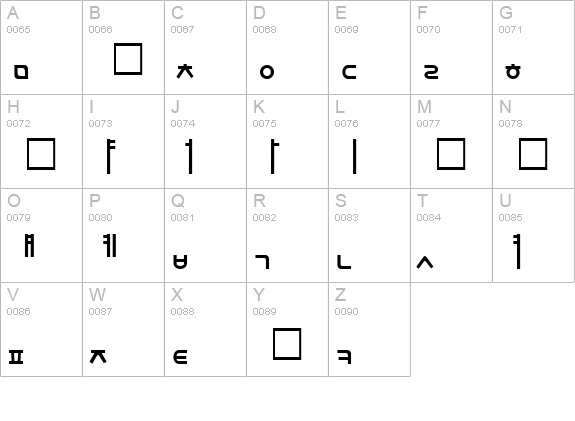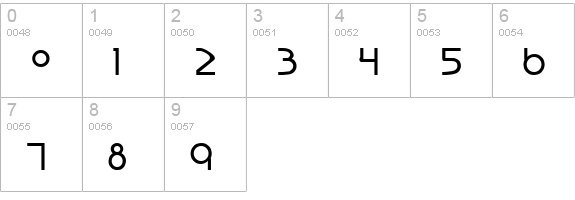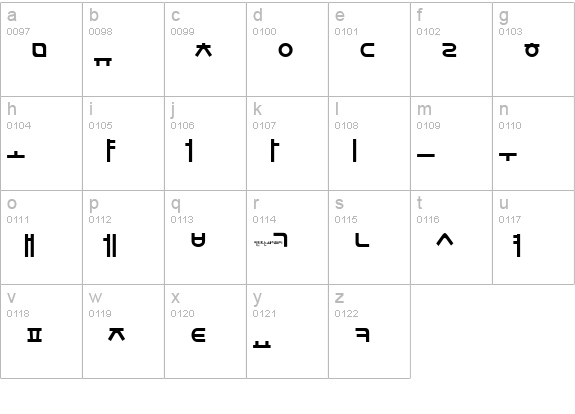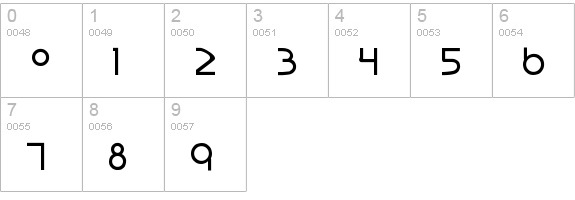
Sorawin Plain Font Details
Sorawin Plain is a captivating and versatile font that effortlessly combines elegance with simplicity. This font is perfect for any creative project, whether it's designing a logo, creating stunning graphics, or crafting eye-catching headlines. Its clean lines and timeless design make it suitable for both professional and personal use. Sorawin Plain stands out from the crowd with its unique blend of sophistication and approachability. Its balanced proportions and crisp letterforms make it easily legible across various mediums, ensuring that your message is conveyed with clarity and style. One of the best things about Sorawin Plain is that it is free! Yes, you read that right. This exceptional font is freely available to download at FontsMarket.com. You can now have access to this remarkable typeface without having to spend a dime. Downloading Sorawin Plain from FontsMarket.com is a breeze. With just a few clicks, you can have this font at your fingertips, ready to enhance your designs and elevate your creative projects. Whether you're a seasoned designer or just starting out, Sorawin Plain is a valuable addition to your font collection. So why wait? Don't miss out on this incredible opportunity to own Sorawin Plain for free. Head over to FontsMarket.com and experience the beauty and versatility of this font firsthand. Unleash your creativity and let Sorawin Plain take your designs to new heights.